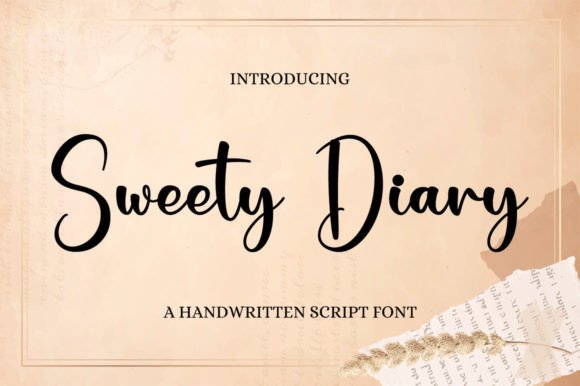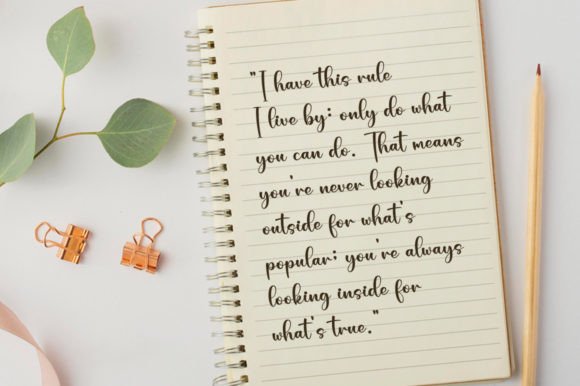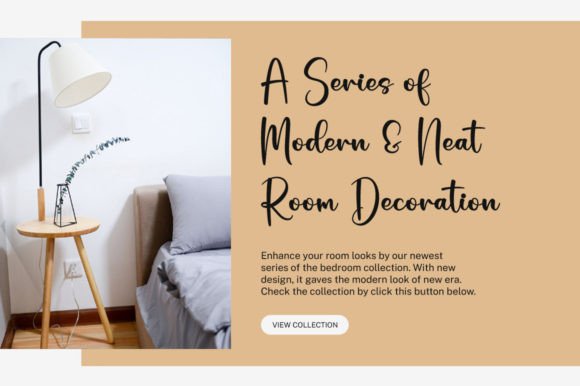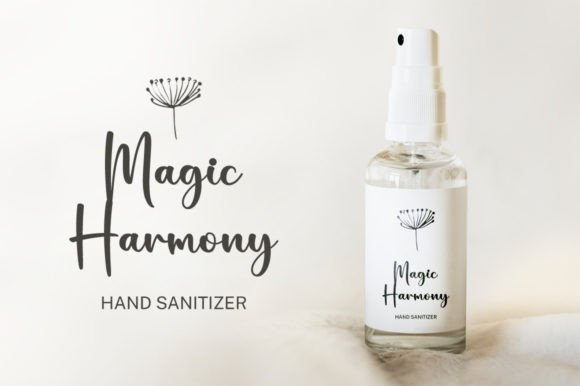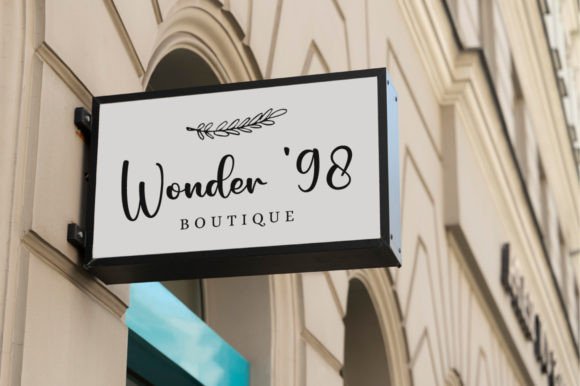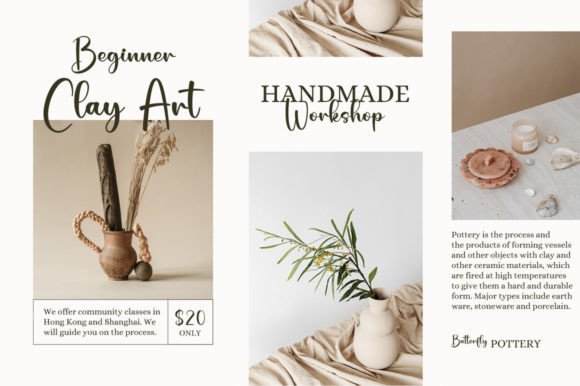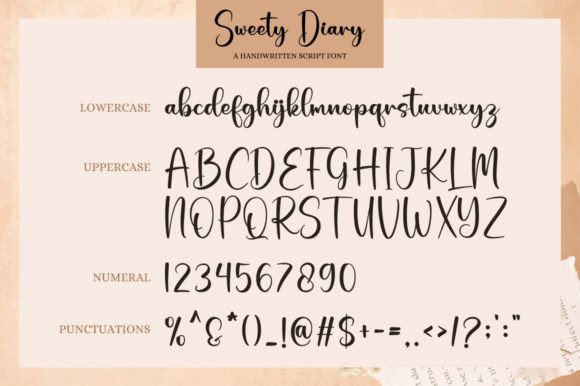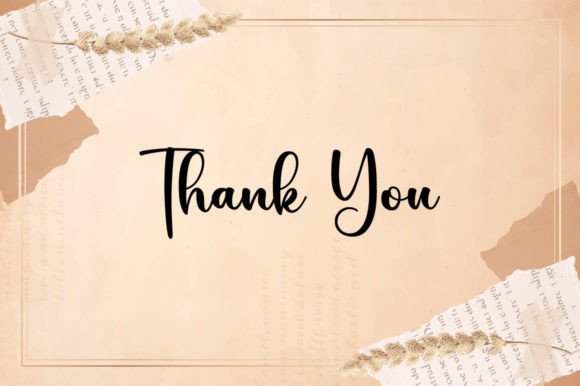
Sweety Diary Font
About Sweety Diary HandwrittenFont
Sweety Diary HandwrittenFont is a lovely and timeless script typeface designed to bring charm and elegance to your creative projects. With graceful strokes and handcrafted details, it combines beauty with versatility. Because of its delicate style, Sweety Diary Handwritten Font is perfect for branding, logos, quotes, invitations, and product packaging.
A Lovely Typeface with Timeless Elegance
Handwritten fonts are admired for their authenticity, and Sweety Diary HandwrittenFont captures that essence perfectly. Its smooth curves and balanced flow make it suitable for both personal and professional designs. In addition, its timeless structure ensures that your projects remain stylish and relevant for years to come.
Perfect Typeface for Logos and Branding
Designers who want to create eye-catching logos and branding will find Sweety Diary Handwritten Font extremely useful. For example, it can transform a simple brand name into an elegant logo with personality. Moreover, it enhances product packaging, advertising, and business cards, ensuring a professional yet approachable look.
A Script Typeface for Quotes and Invitations
Sweety Diary HandwrittenFont is also a great option for personal projects such as invitations, greeting cards, and quotes. Its flowing style adds warmth and creativity, turning simple messages into meaningful designs. Furthermore, it adapts seamlessly to event stationery like wedding invitations, menus, and thank-you notes.
Flexible Across Print and Digital Media
Another advantage of Sweety Diary HandwrittenFont is its adaptability. In print, it works beautifully for posters, flyers, brochures, and merchandise. Digitally, it enhances websites, blogs, and social media graphics. Since it maintains clarity in both small and large sizes, it is practical for everything from stickers to banners.